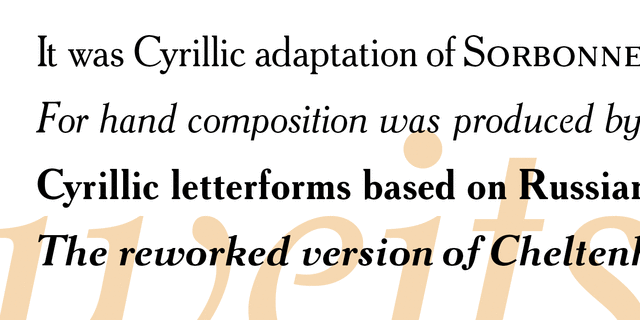
About AcademyAcademy was designed circa 1910 at the Berthold type foundry (St.-Petersburg). It was based on Sorbonne (H. Berthold, Berlin, 1905), which represented the American Type Founders rework Cheltenham of 1896 (designers Bertram G. Goodhue, Morris F. Benton) and Russian typefaces of the mid-18th century. It’s a low-contrast text typeface with historical flavor. The modern digital version was designed at Polygraphmash type design bureau in 1989 by Lyubov Kuznetsova. Corrections and additions were done later at ParaType in early 2000th. Reworked version with Bold Italic style was released in 2009. Extended version of Book style with small caps was released in 2013. Corrections and extensions were made by Vladimir Yefimov.
Features of font family AcademyThe hit of the decade:
Hit of 1900s Hit of 1910s Close to historical original:
Associations for font family AcademyTypeface personality and character:
conservative, classic, traditional, old-fashioned, nostalgic, decent, interesting, regardful, narrative, artistic, beautiful, humanitarian, cozy, elegant, mannered, polite, authoritative, persistent, experienced, rude